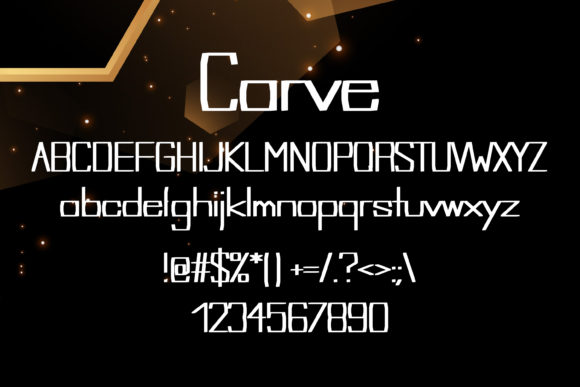
Introducing Carve Font: Elevate Your Designs with a Bold and Unique Display Font
Are you tired of using the same old fonts in your designs? Do you want to add a touch of futurism and excitement to your projects? Look no further than Carve Font, a bold and uniquely shaped display font that’s sure to bring your ideas to life. In this article, we’ll take a closer look at Carve Font, its features, and how you can use it to take your designs to the next level.
What is Carve Font?
Carve Font is a display font that’s designed to make a statement. Its bold and futuristic shape is perfect for adding a touch of excitement to your designs. Whether you’re working on a logo, a poster, or a website, Carve Font is sure to grab attention and leave a lasting impression. The font’s unique shape is reminiscent of carved-out letters, hence the name “Carve”. This distinctive feature sets it apart from other fonts and makes it a great addition to any design project.
Key Features of Carve Font
So, what makes Carve Font so special? Here are some of its key features:
- Bold and Futuristic Shape: Carve Font has a bold and futuristic shape that’s perfect for making a statement.
- Unique Design: The font’s carved-out design sets it apart from other fonts and makes it a great addition to any design project.
- Highly Legible: Despite its bold and futuristic shape, Carve Font is highly legible, even at small sizes.
- Versatile: Carve Font can be used for a wide range of design projects, from logos and posters to websites and more.
How to Use Carve Font in Your Designs
Now that we’ve covered the features of Carve Font, let’s talk about how you can use it in your designs. Here are some ideas to get you started:
- Logos: Carve Font is perfect for creating bold and eye-catching logos that will help your brand stand out.
- Posters: Add a touch of futurism to your posters with Carve Font. It’s perfect for creating bold and attention-grabbing headlines.
- Websites: Use Carve Font to add a touch of excitement to your website’s design. It’s perfect for headings and titles.
- Social Media Graphics: Carve Font is also great for creating social media graphics, such as Facebook posts and Twitter headers.
Tips for Getting the Most Out of Carve Font
Here are some tips for getting the most out of Carve Font:
- Use it Sparingly: Carve Font is a bold font, so it’s best to use it sparingly. Use it for headings and titles, and a more subtle font for body text.
- Experiment with Colors: Carve Font looks great in a wide range of colors. Experiment with different colors to find the one that works best for your design.
- Pair it with Other Fonts: Carve Font can be paired with other fonts to create a unique and interesting design. Try pairing it with a sans-serif font for a bold and modern look.
In conclusion, Carve Font is a bold and uniquely shaped display font that’s perfect for adding a touch of futurism to your designs. Its bold and futuristic shape, unique design, and high legibility make it a great addition to any design project. Whether you’re a designer, crafters, or DIY enthusiast, Carve Font is sure to bring your ideas to life. So why not give it a try and see the difference it can make?